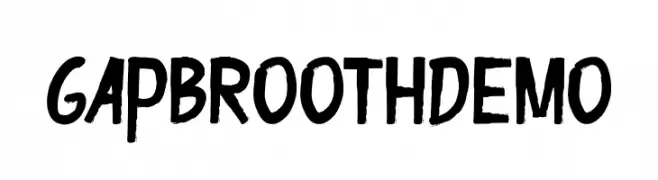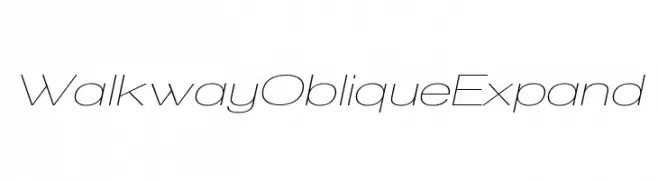
A bold, brush-style handwritten font with dynamic and expressive strokes.
A bold, hand-drawn font with a playful and energetic style.
A modern, oblique font with thin, elongated characters and wide spacing.
A bold, italicized font with angular letterforms and tight spacing, ideal for dynamic designs.
A bold, italicized font with sharp angles and a dynamic presence.
A sleek, italicized font with a chrome-like, futuristic design.
A bold, futuristic font with a halftone effect and high contrast strokes.
An elegant script font with flowing, cursive letterforms and moderate stroke contrast.
A bold, handwritten font with a playful and energetic style.
A bold, distressed font with a rugged, vintage style.